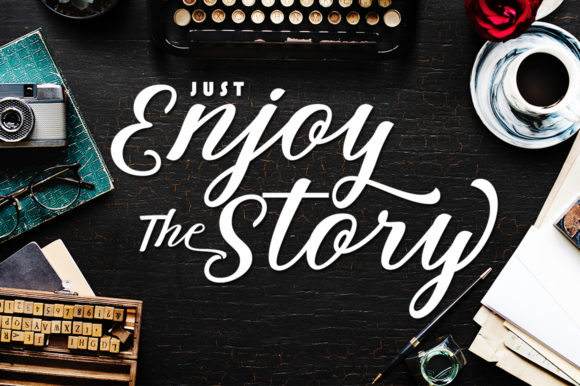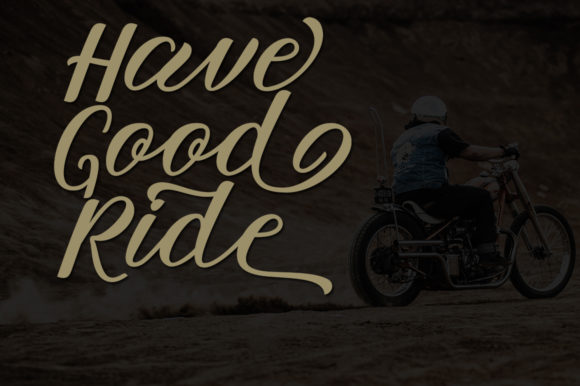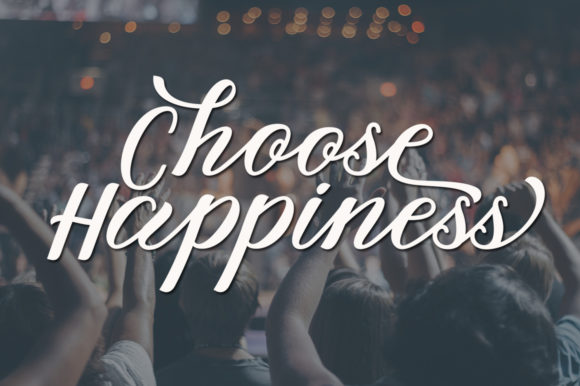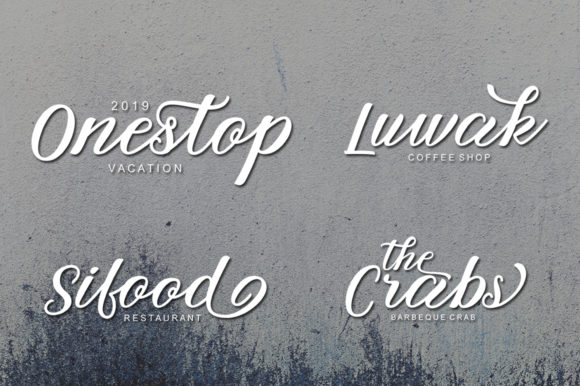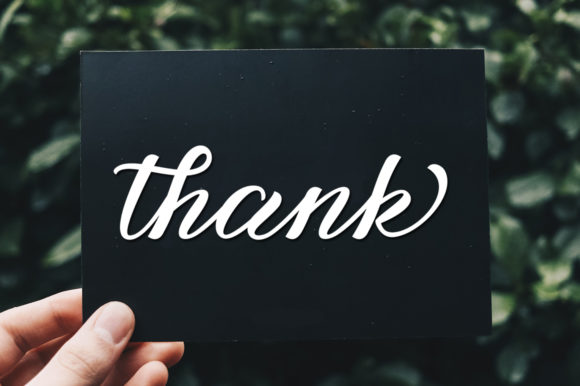
Winther Script Font
About Winther Script Font
The Winther is a modern brush font. It has a bold and irregular baseline and is perfect for adding an unique look to your designs.
It can be used for watercolor designs, lettering, blogs, headers, branding, t-shirts, weddings, and much more!